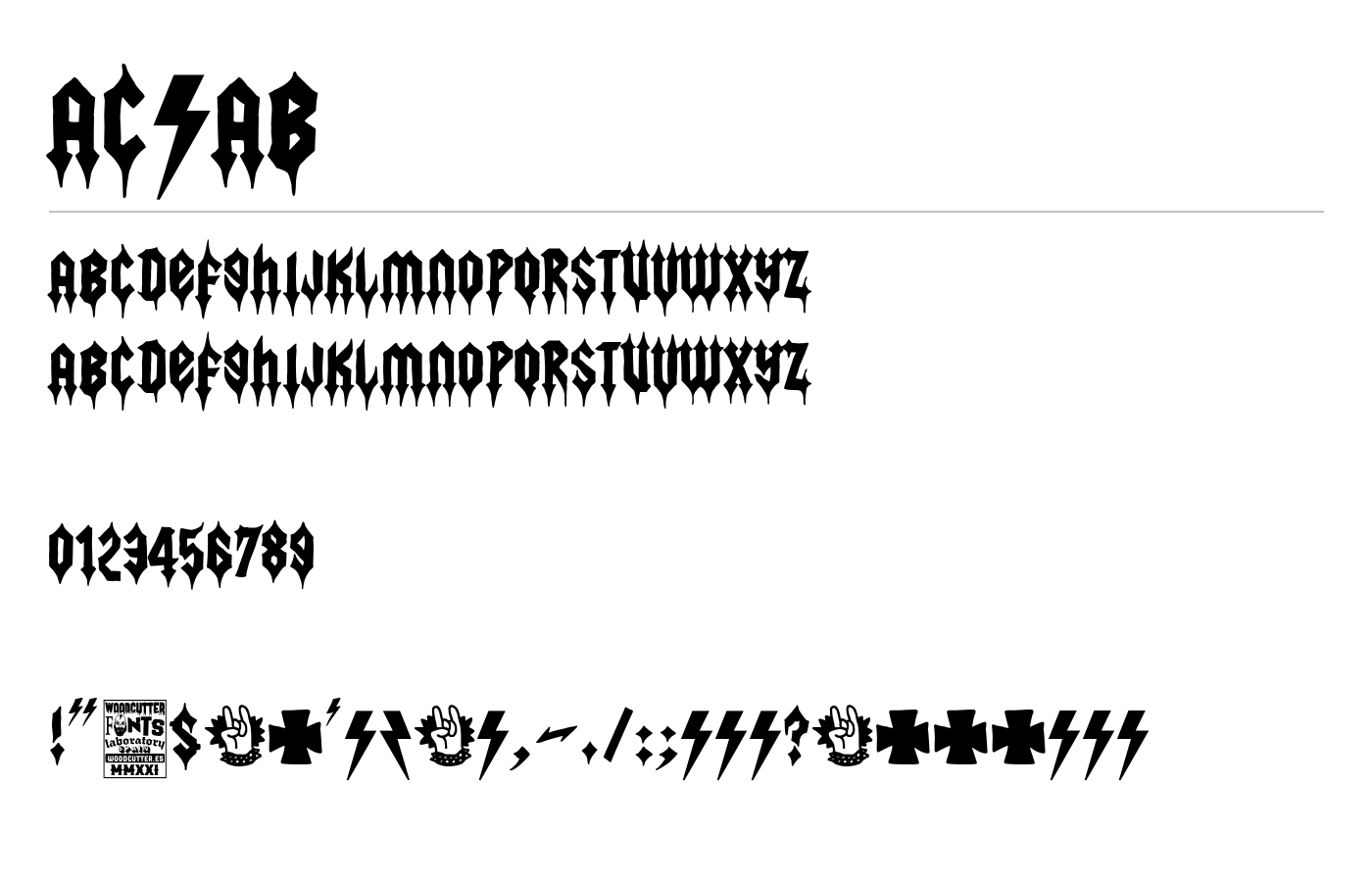
AC+AB is a bold, condensed blackletter-inspired font with sharp, angular strokes and striking high contrast that evoke a rebellious, rock-and-roll vibe. Its heavy weight, pointed serifs, and distinctive lightning bolt motifs make it ideal for edgy branding, band logos, posters, and designs seeking a dramatic, vintage punk aesthetic. This display font commands attention with its strong personality and quirky symbolic characters.
AC+AB Font
About AC+AB Font